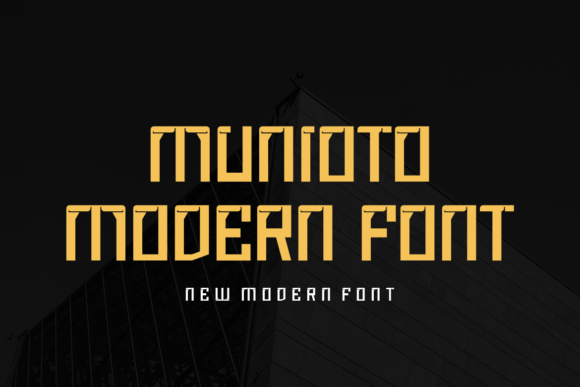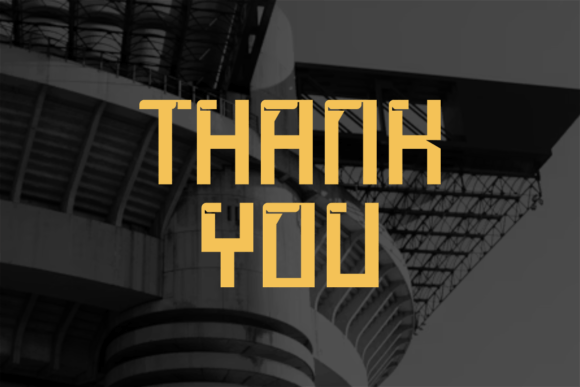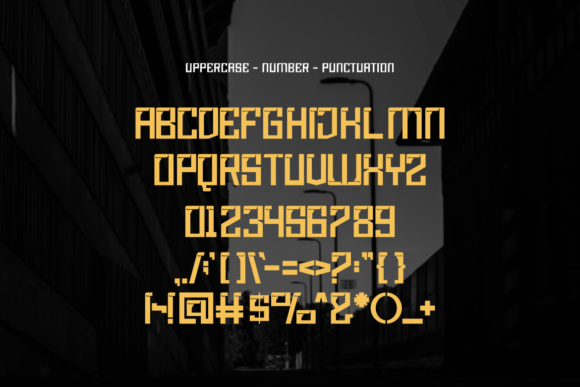
Introduction to Munioto Font
Have you ever been stuck in the middle of a creative project, staring at a blank page, desperately searching for the perfect font to bring your vision to life? That’s where Munioto Font comes in – a modern, bold, and authentic display font designed to elevate your design game. Whether you’re working on a branding project, designing a logo, or creating a stunning visual identity, Munioto Font is the perfect design resource to add that extra oomph to your work.
As a designer, you know the importance of having high-quality design assets at your fingertips. Munioto Font is a valuable addition to any design library, offering a transparent background that makes it easy to use in a variety of contexts. With its unique character and versatility, Munioto Font is an ideal choice for creative projects that require a touch of sophistication and style.
Key Features of Munioto Font
- Features a unique, modern design that can add a touch of sophistication to any creative project, from branding to publishing.
Honest Review: Munioto Font
I recently had the chance to try out the Munioto Font and I must say, it’s been a game-changer for my creative projects. As a designer, I’m always on the lookout for high-quality design resources that can help me elevate my work.
One of the things that works well with the Munioto Font is its clean and modern aesthetic. It’s perfect for any project that requires a touch of sophistication and elegance. The font also features a transparent background, which makes it easy to use on any background without worrying about distractions.
Here are some of the key features that I love about the Munioto Font:
- ✨ Clean and modern aesthetic that’s easy to use
- ✨ Transparent background for seamless integration
That being said, there are a few limitations to the Munioto Font that I’ve noticed. The font is only available in a limited range of weights, which may not be ideal for designers who need more flexibility.
Overall, I’m really impressed with the Munioto Font and would definitely recommend it to fellow designers. Its high-quality design and transparent background make it a great addition to any creative project.
Getting the Most Out of Munioto Font
To get the most out of Munioto Font, use it with a transparent background to create a modern and sleek design. You can also experiment with different font sizes and styles to add visual interest to your design. Additionally, consider using Munioto Font in combination with other design elements, such as images and shapes, to create a cohesive and visually appealing design.
Munioto Font is commonly used in various design projects, including logo designs, business cards, brochures, and social media graphics. It’s also a great choice for creating presentations, documents, and websites. With its high-quality design and free download option, Munioto Font is a valuable design resource for designers and non-designers alike.